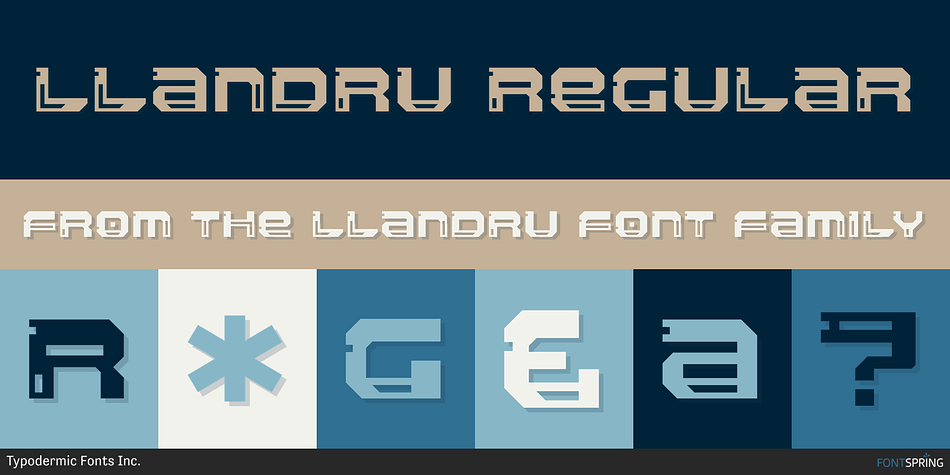
LLANDRU REGULAR
Llandru is a display font published by Typodermic Fonts Inc.
Introducing Llandru, the display typeface of the future, where mechanical shapes meet sci-fi design in a bold, bizarre creation that’s sure to leave a lasting impression. Inspired by the very components that power our digital world, Llandru brings a unique twist to contemporary graphic design.
With its sleek, edgy lines and futuristic appeal, Llandru is the perfect typeface for those who want to stand out from the crowd. And with OpenType stylistic alternates, you can access a variety of fascinating filled counter alternates to truly make your message pop.
Take your designs to the next level with Llandru, where technology and otherworldly splendor collide. This typeface will give your message a sense of forward-thinking style that’s sure to captivate your audience. So why settle for ordinary when you can create something extraordinary with Llandru?